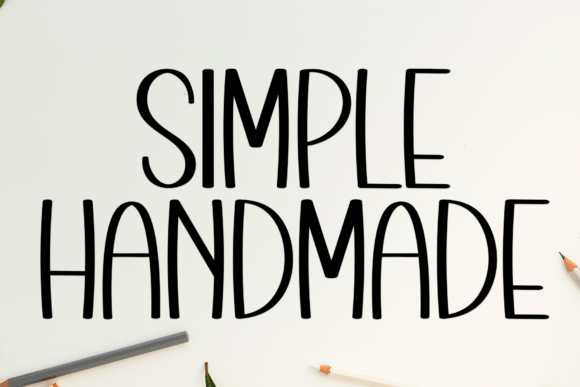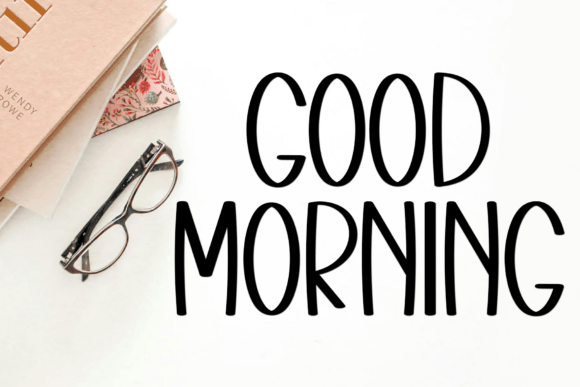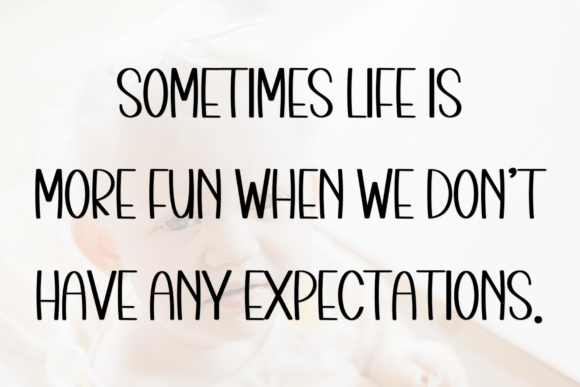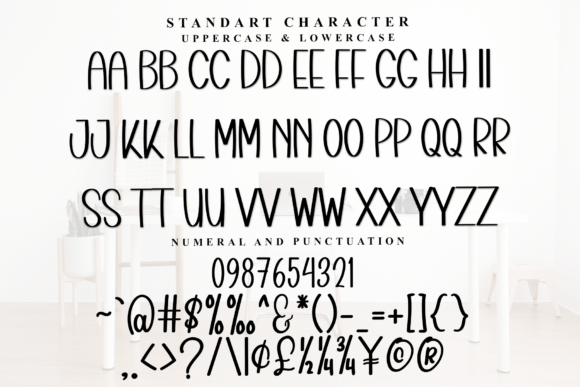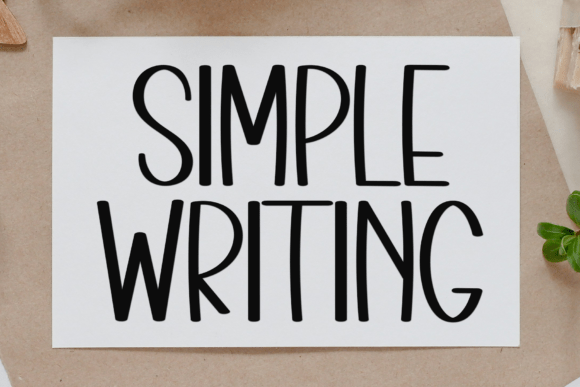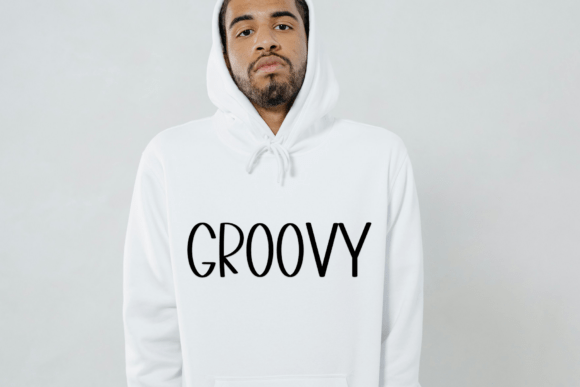
Discover the Charm of Friend Teacher Font: Elevate Your Designs with a Unique Touch
In the world of typography, a font can make all the difference in the success of a design project. It’s not just about conveying a message; it’s about doing so with style and impact. This is where the Friend Teacher Font comes into play, a beautifully crafted typeface that brings a soft, unique touch to the table. In this article, we’ll dive deep into the characteristics, benefits, and applications of the Friend Teacher Font, exploring how it can become an indispensable part of your design toolkit.
The Distinctive Character of Friend Teacher Font
Friend Teacher Font stands out from the crowd with its distinctive strokes and special character. Each letter is designed with care, ensuring that the font not only catches the eye but also holds meaning. This is not just a font; it’s a statement piece for your designs. Whether you’re working on a project that requires a touch of elegance, a dash of creativity, or simply something that stands out, Friend Teacher Font is up to the task.
One of the key benefits of Friend Teacher Font is its versatility. With a wide range of characters, this font is perfect for a multitude of design projects. From crafting beautiful posters and flyers to designing engaging digital content, Friend Teacher Font adapts seamlessly. Its unique touch doesn’t limit its use to specific types of projects; instead, it enhances a broad spectrum of creative works.
Seamless Compatibility for Diverse Applications
In today’s digital age, compatibility is crucial. Friend Teacher Font shines in this aspect, offering seamless integration with various applications. Whether you’re working on a Windows platform or prefer open-source solutions, this font fits right in. This compatibility ensures that you can use Friend Teacher Font across different projects and mediums without any technical hiccups.
Ideal for a Wide Range of Products
The natural style of Friend Teacher Font makes it an excellent choice for a wide array of products. From branding and advertising materials to crafts and DIY projects, this font adds a touch of warmth and personality. It’s not just about making your designs look good; it’s about making them resonate with your audience. Friend Teacher Font helps you achieve that by bringing a human element to your work.
Enhance Your Designs and Appeal to a Broad Audience
What sets Friend Teacher Font apart is its broad appeal. Its unique yet accessible design makes it a favorite among designers and crafters across various artistic and creative fields. Whether your target audience is young or old, professional or casual, Friend Teacher Font has the power to engage them. By incorporating this font into your designs, you’re not just enhancing their aesthetic appeal; you’re also increasing their reach and impact.
Practical Applications for Designers and Crafters
So, how can you practically apply Friend Teacher Font in your work? Here are a few ideas:
• Branding: Use Friend Teacher Font in logos, business cards, and letterheads to give your brand a unique identity.
• Digital Content: Enhance your website, social media posts, and email newsletters with this font to make your content more engaging.
• Crafts: From handmade cards to DIY decorations, Friend Teacher Font can add a personal touch to your crafts.
• Educational Materials: Create appealing and easy-to-read learning materials for students of all ages.
Friend Teacher Font is more than just a typeface; it’s a tool that can elevate your designs, making them more appealing and effective. Its unique touch, versatility, and compatibility make it an excellent choice for designers and crafters looking to add a special something to their work. Whether you’re working on a professional project or a personal craft, Friend Teacher Font is sure to enhance your creative output, making it resonate with a wide audience across different artistic and creative fields.